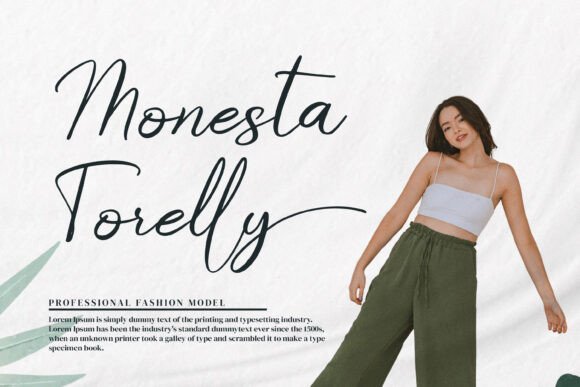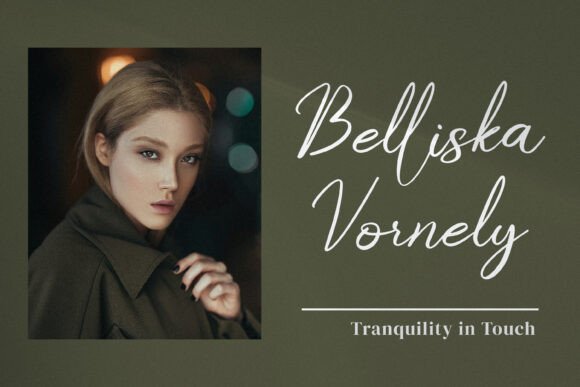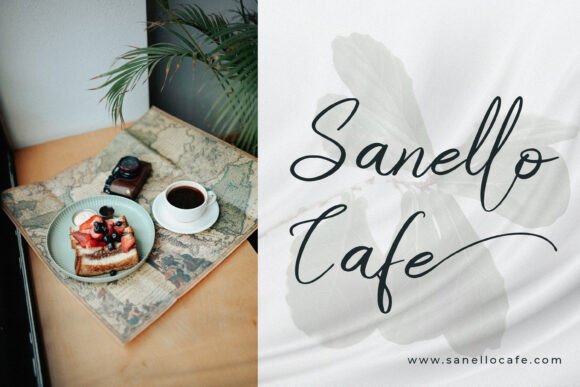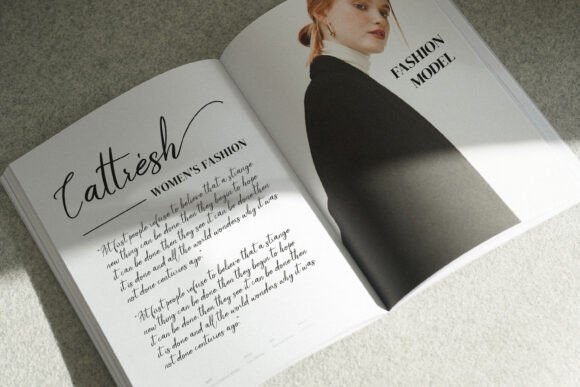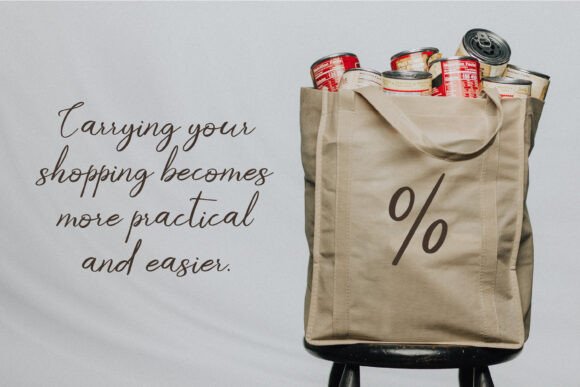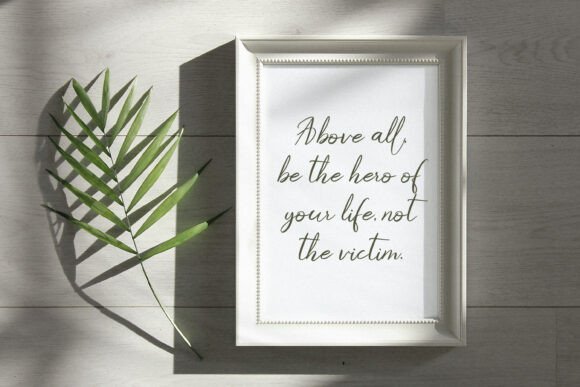
One such spark is the Jhelysta Font, a stunning handwritten font that brings a touch of elegance and sophistication to any design. With its smooth curves and natural flow, Jhelysta Font is perfect for logos, invitations, quotes, or any project that needs a personal and classy touch. Whether you’re a seasoned designer or just starting out, Jhelysta Font is a valuable addition to your toolkit.
Jhelysta Font Key Features
- Font Style: Script, Calligraphy
- Size: 1,034 glyphs, including international characters and symbols
- Resolution: Supports up to 1024 x 1024 dpi resolution
- Unique Characteristics: Hand-drawn, elegant, and cursive script font with intricate details and flourishes
- Language Support: Multilingual support, including Latin, Cyrillic, Greek, and many other languages
Design Review: Jhelysta Font
I recently had the chance to experiment with the Jhelysta font, and I must say it’s a unique addition to any designer’s toolkit. ✨ One of the standout features is its elegant and modern aesthetic, making it perfect for high-end branding and advertising projects. The font’s clean lines and subtle curves give it a sophisticated feel that’s hard to resist.
Another aspect that works well is its versatility. ✨ Jhelysta Font can be used in a variety of contexts, from titles and headings to body text and even logos. Its adaptability makes it a great choice for designers who need a font that can keep up with their creative vision.
- ⚠️ Limited language support: Unfortunately, Jhelysta Font only includes support for Latin characters, which might limit its use for projects that require other languages.
- ⚠️ Limited font sizes: While the font looks great at larger sizes, it can become quite condensed at smaller sizes, which might make it difficult to read in certain contexts.
Overall, Jhelysta Font is a solid choice for designers who want a modern, elegant font that’s easy to use. While it has some limitations, its unique aesthetic and versatility make it a great addition to any design library.
For the most out of Jhelysta Font, use it in combination with bold or italic styles to create emphasis. You can also adjust the font size and color to match your design needs.
Jhelysta Font is suitable for a variety of applications, including branding, advertising, and editorial content. It is particularly effective for titles, headings, and short paragraphs where a clear and elegant font is required.